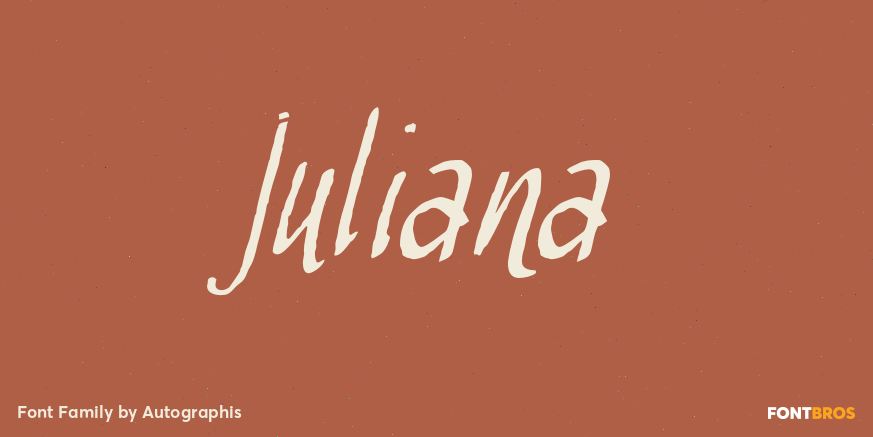
HomeFont BrosDistressedJuliana DistressedScripts: CasualHandwritten Juliana FacebookXPinterestWhatsApp 1 of 1 About Juliana is a handwritten non-joining condensed script, scanned and finished carefully by hand on screen, with that little bit of extra effort to keep the ?rough? touch.  DOWNLOAD ON FONT BROSThis font is sold and delivered by Font Bros. Font Canyon may earn a commission if you buy through this link. People also explored Patteson Font Oxamu Evangelina Font Cream Latte Font Algasella Font Beach Holiday Font ZP Shoestring Font Sunday Girl Font Good Things Font 237 0 TagsJulianaJuliana Font Previous articleAlmost LoverNext articleTranquility JY LEAVE A REPLY Cancel reply Comment: Please enter your comment! Name:* Please enter your name here Email:* You have entered an incorrect email address! Please enter your email address here Website: Save my name, email, and website in this browser for the next time I comment. Personal Use Free Crellia Script Personal Use Free Read more about this font Ammanda Personal Use Free Read more about this font Millea Personal Use Free Read more about this font Turpentine Personal Use Free Read more about this font BLOG Free Fonts Risk: Why Free Fonts Can Be Dangerous for Designers Free Fonts Risk: Why Free Fonts Can Be Dangerous for Designers Using free fonts is a common practice in web and graphic design. However, the... Where to Buy American Fonts Online in 2024 Elegant Wedding Invitation Fonts – Handwritten & Script Fonts Free vs Paid Fonts: Why Investing in Premium Fonts Is Worth It